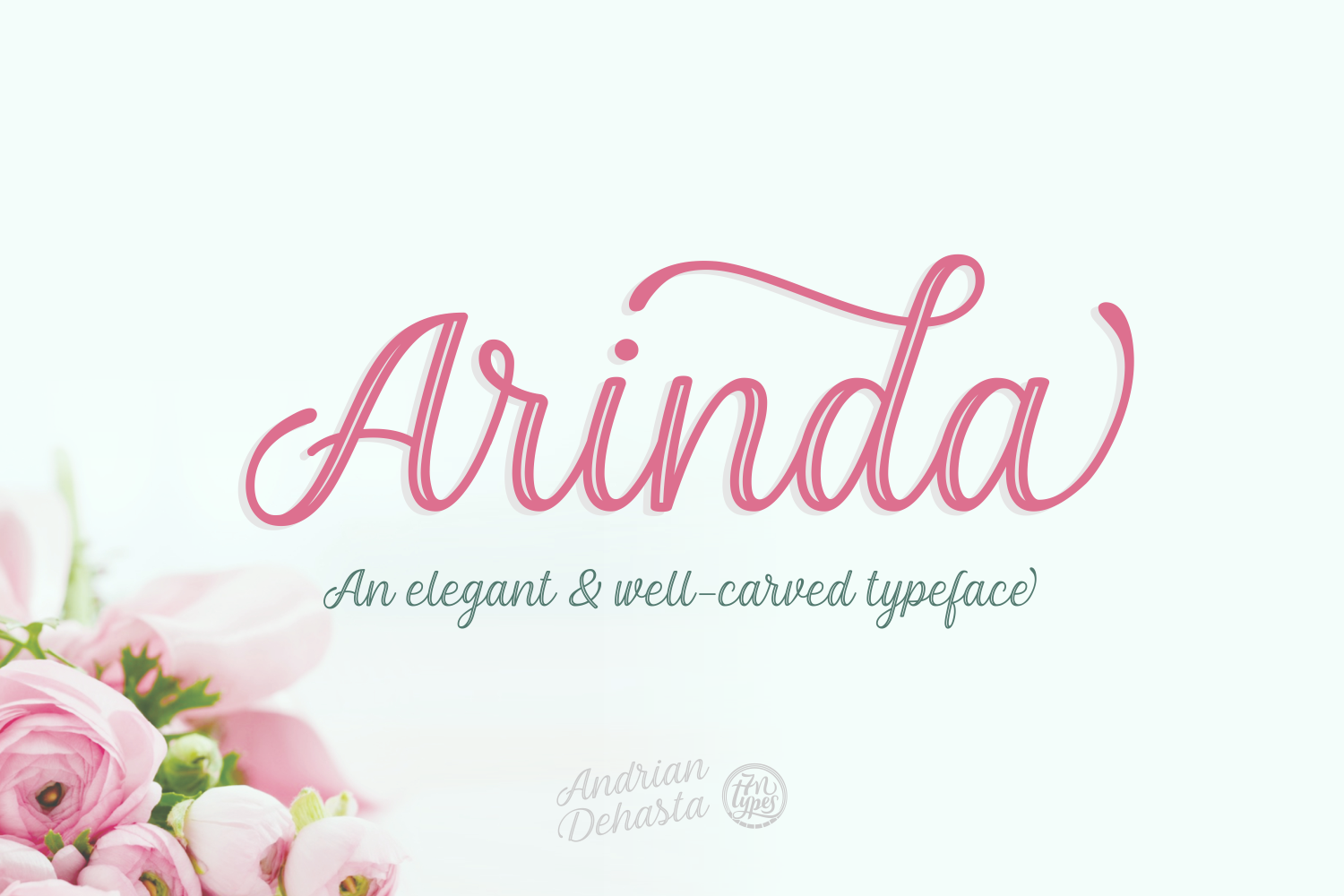
Arinda Font
About Arinda Font
Arinda is a beautiful handwritten script font in a casual calligraphy style; this font is a great way to give your displays a thoughtful and romantic look.